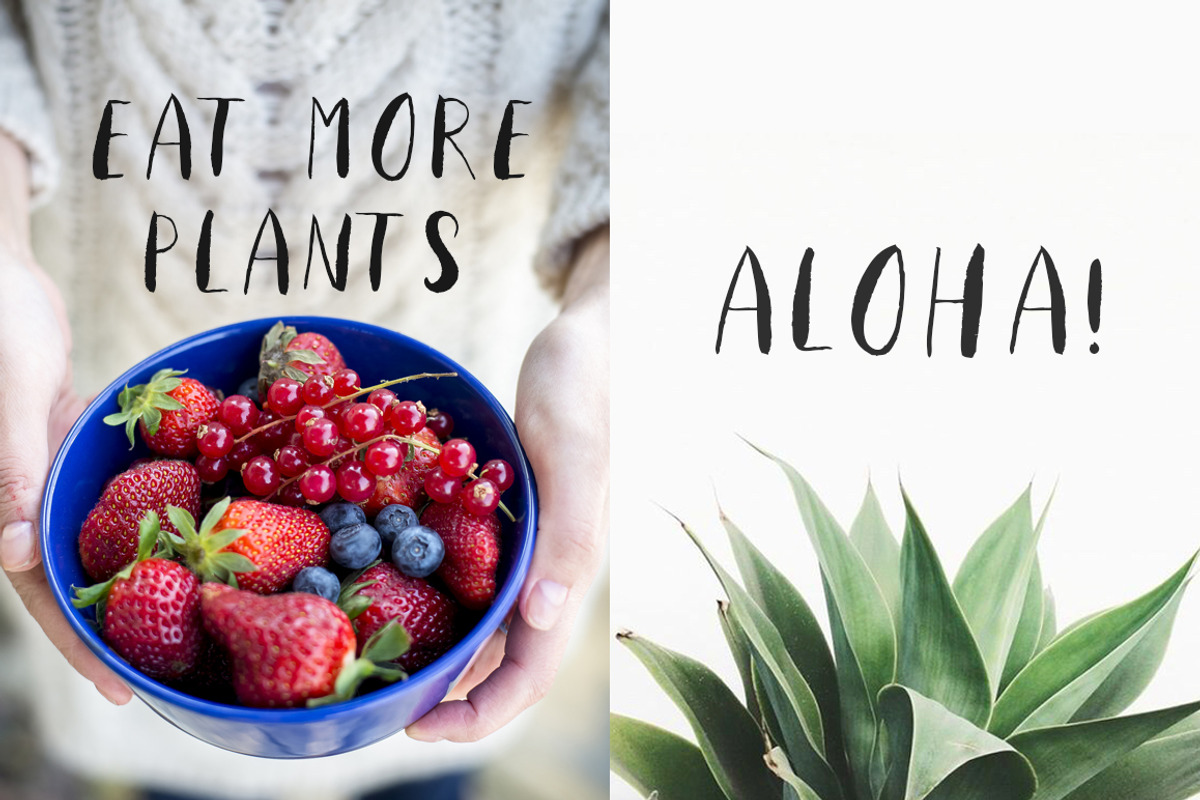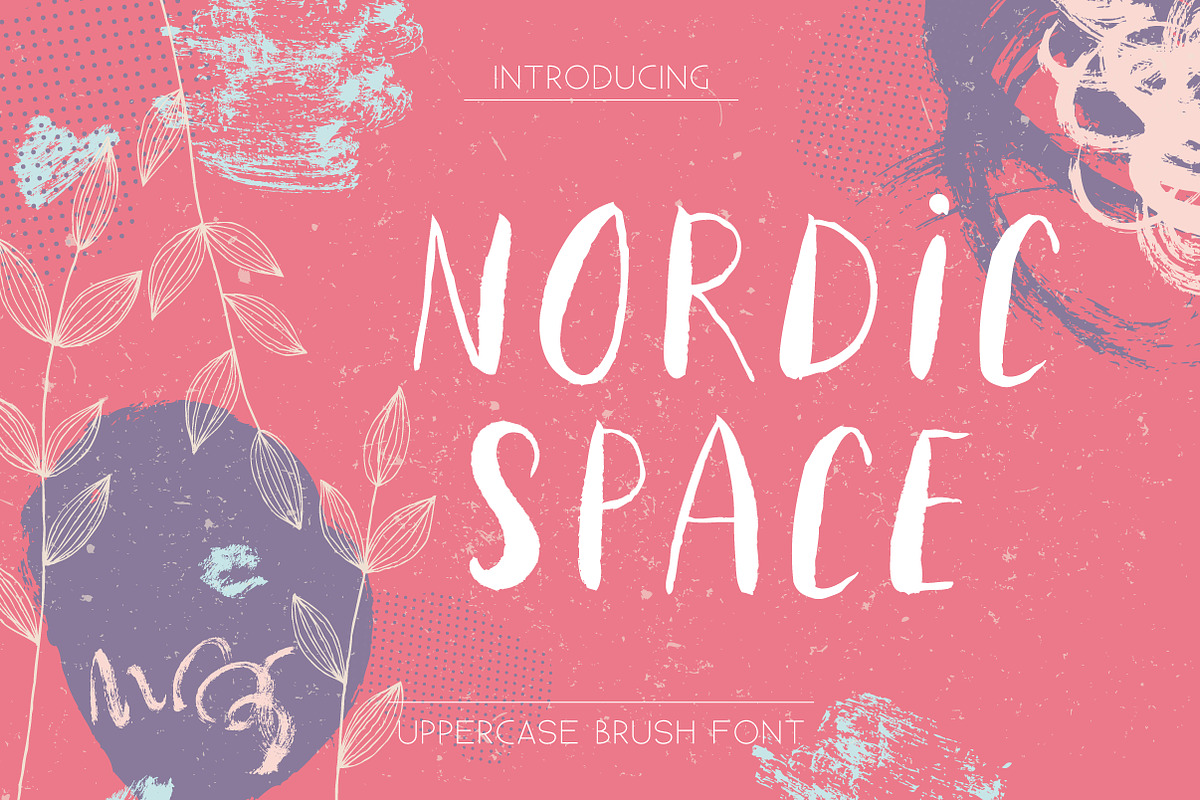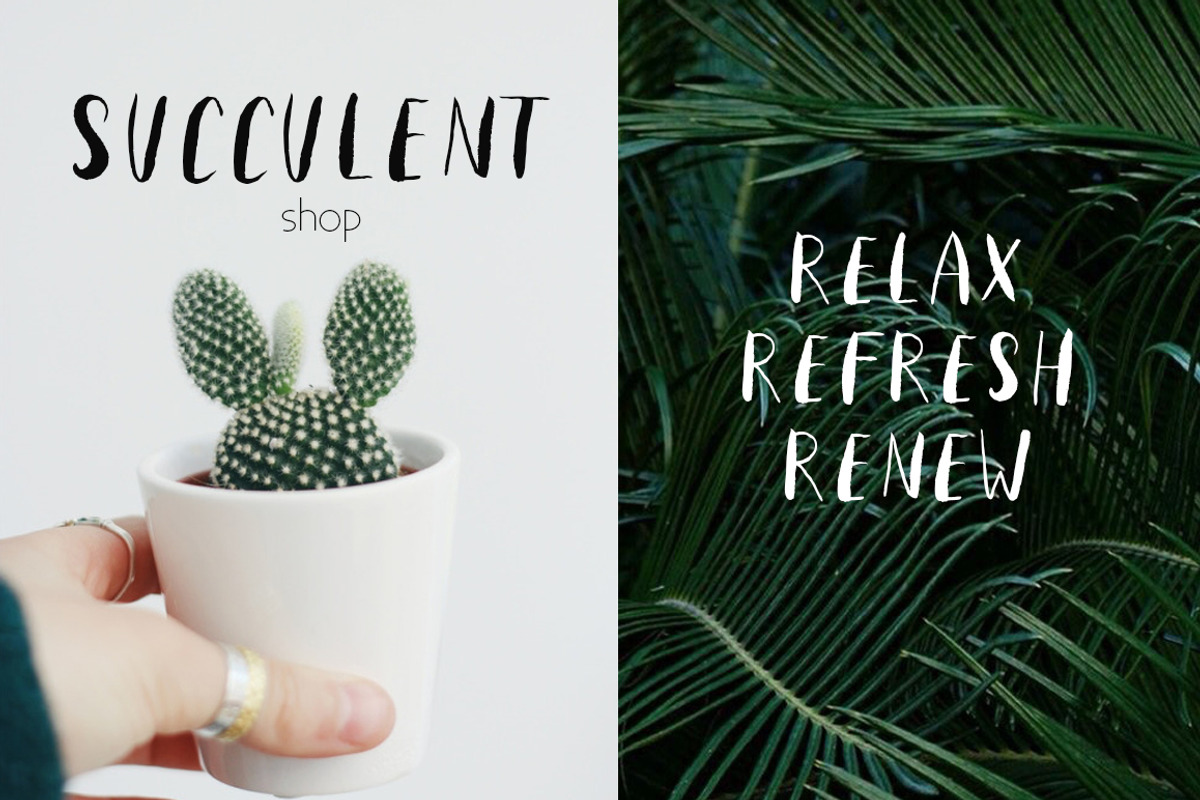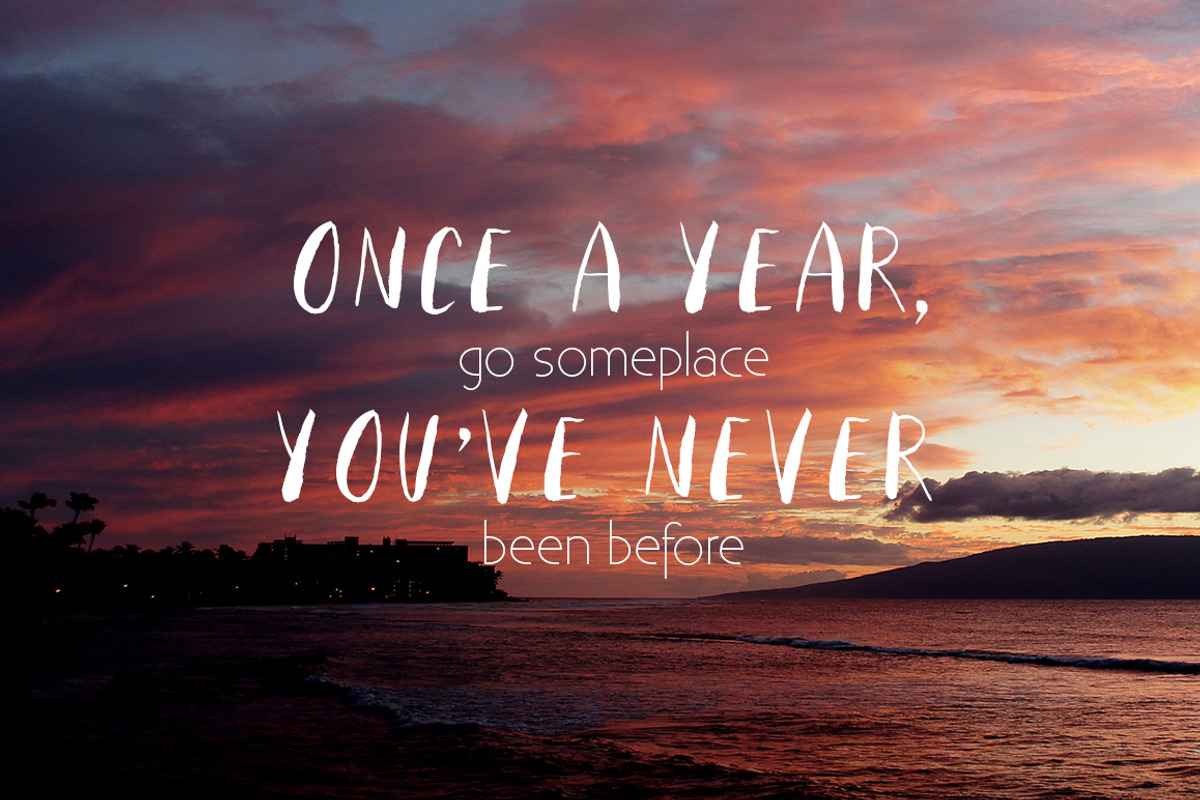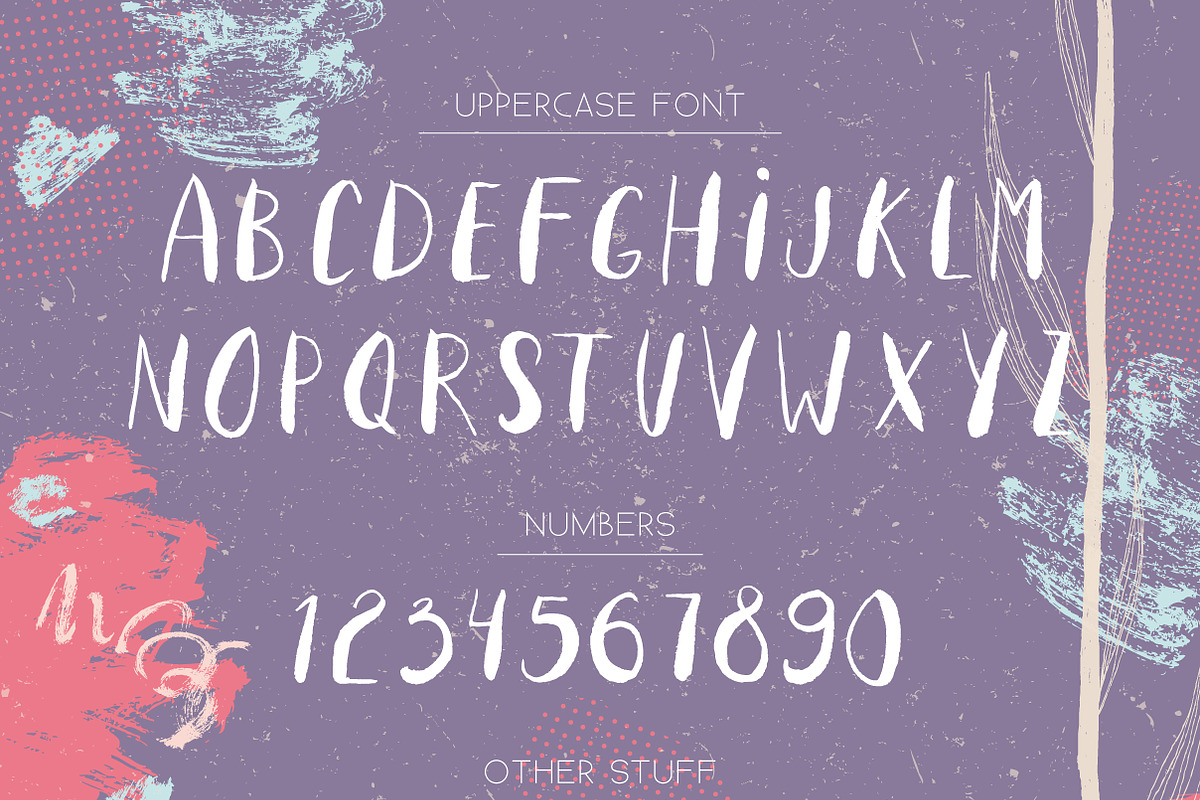
Nordic Space | Uppercase Font
Nordic Space is an uppercase raw-looking font, perfect for creating hand-lettered texts for posters, cover designs and logos.